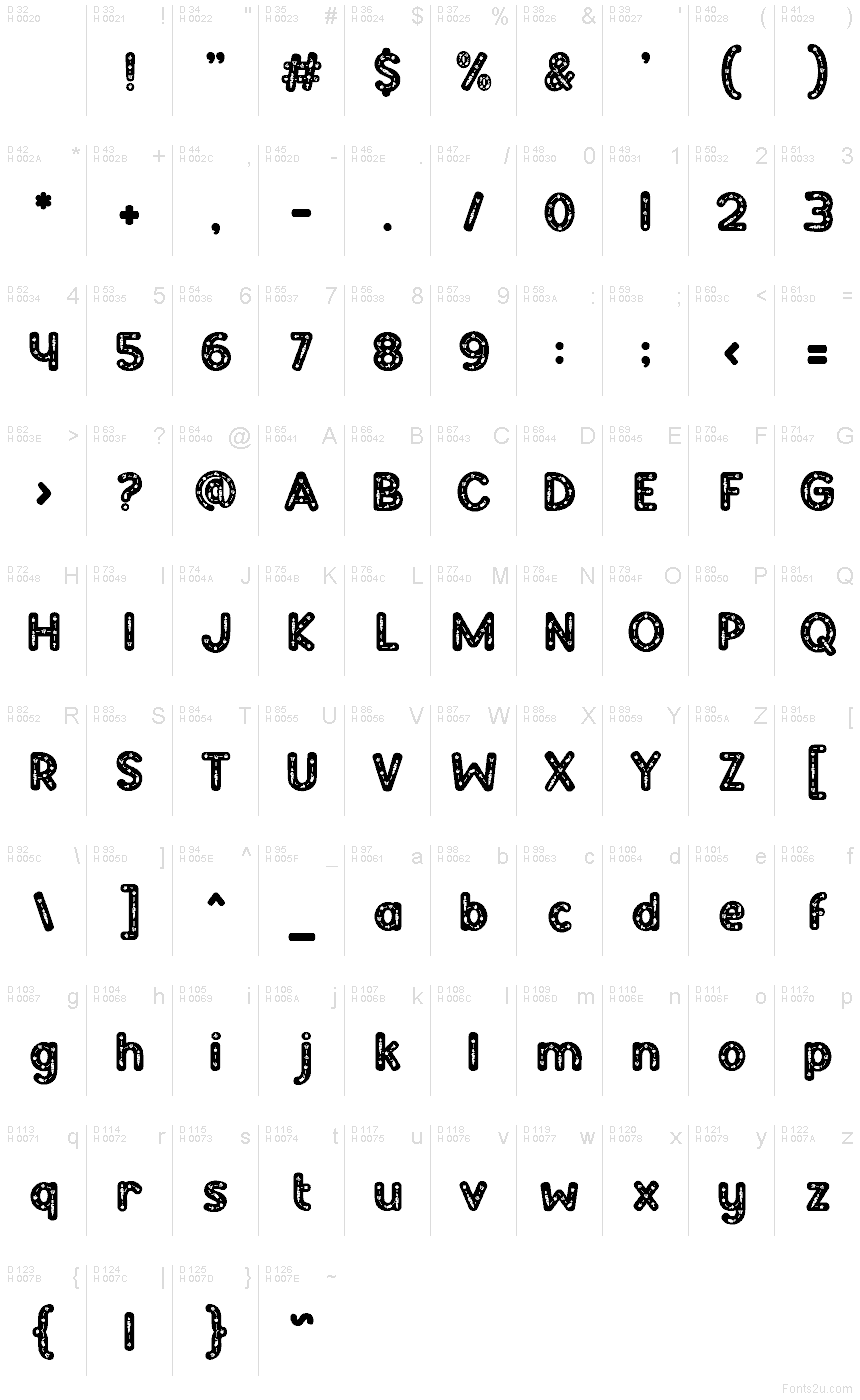
Green Delight Decoration 2
Green Delight Decoration 2 font by PutraCetol Studio adds the finished look to your typeface design. The handwriting has a bubble-like style that gives retro vibes in decorative interiors filled with whimsical patterns and soft colors. Implement the casual feel using each character in a playful look and create an instant fun ambiance wherever used.
Experience different futures with this free display font by combining the two types available. They are delightful together on branding design projects from logos to business cards, mockups, marketing posters, blog headers, social media banners, book covers, and packaging or magazine titles.